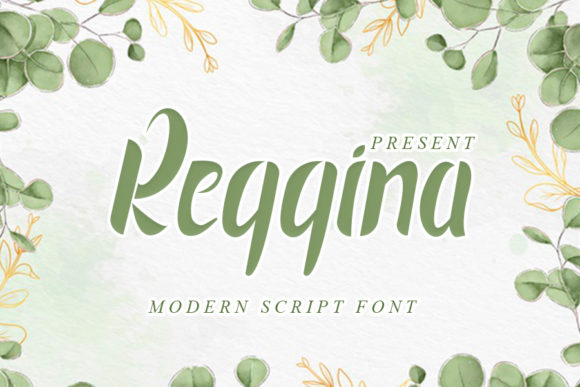
Immerse yourself in the charm of Reggina, an enchanting handwritten font that emanates elegance and sophistication. Let your creativity flourish as you explore the boundless possibilities of this versatile script. With delicate strokes and graceful curves, Reggina effortlessly adds a personal touch to any design, whether it's a captivating logo, a heartfelt invitation, or an eye-catching social media post.
As a font, Reggina is your secret weapon for captivating designs that leave a lasting impression. Its ability to evoke emotion and create a meaningful connection with your audience makes it the perfect choice for expressing yourself in a unique and authentic way. Unleash your imagination and watch as your creative vision comes to life with Reggina's enchanting allure.
This meticulously crafted font is the brainchild of ONE DESIGN, a renowned font foundry known for their dedication to creating masterpieces that enhance your creative endeavors. With Reggina, they have outdone themselves, blending the timeless beauty of handwritten calligraphy with a modern twist, resulting in a font that speaks to your soul.